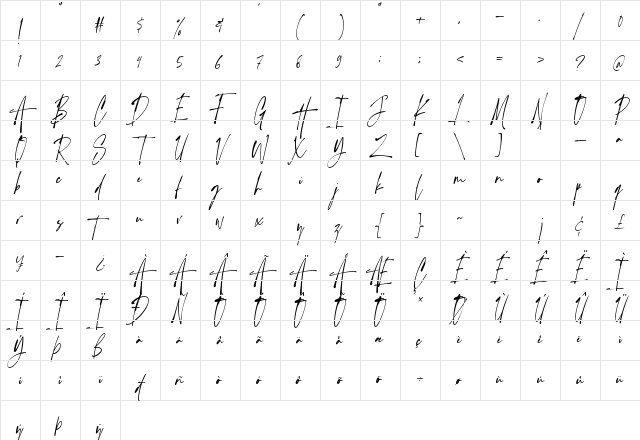
Handsetting Regular Free Font
Handsetting Regular
Designer: Muhamad Yusron Billah
Design Context for Handsetting
Handsetting flows with the natural rhythm of handwritten lettering, making it ideal for designs that call for warmth and personal expression.